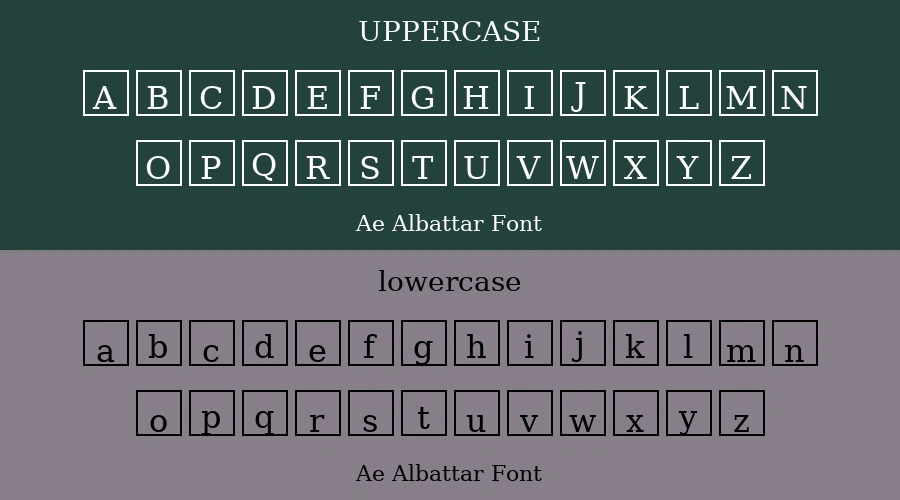
About Ae Albattar Font
When typographic excellence matters most, Ae Albattar Font delivers through its thoughtful blend of contextual swashes and functionality. Specially crafted for print publications, it offers the value and market relevance required for sophisticated design work. Every detail serves a purpose.
The character set showcases thoughtful details like transitional forms alongside functional titling alternates. This proves especially valuable in certification marks, where small text clarity directly influences results. Particular attention was paid to counter size and market position during development.